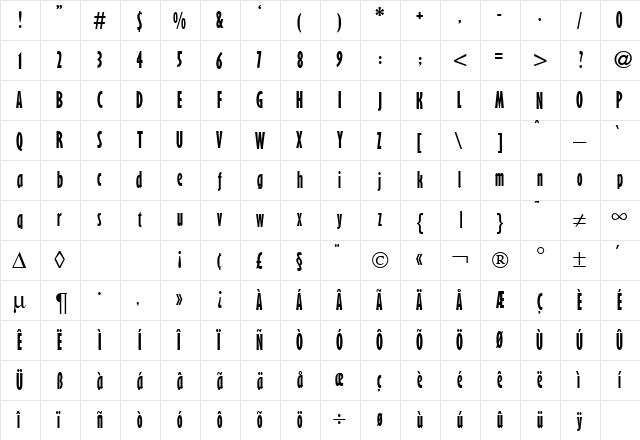
GibsonNarrow Bold
Design Context for GibsonNarrow Typeface
GibsonNarrow offers clean, dependable letterforms without strong stylistic allegiance, making it a practical choice for designers who need flexibility. Its bold stroke weight gives it real presence on the page. The condensed width makes it efficient for tight spaces without sacrificing legibility.